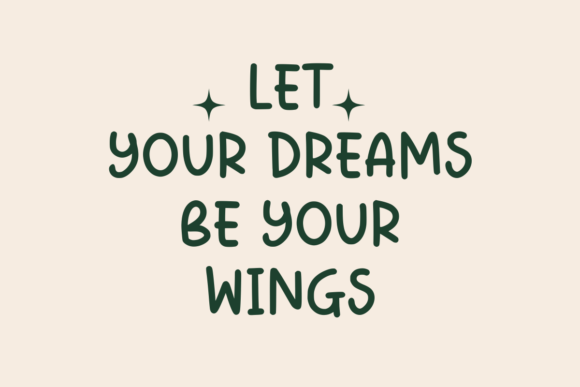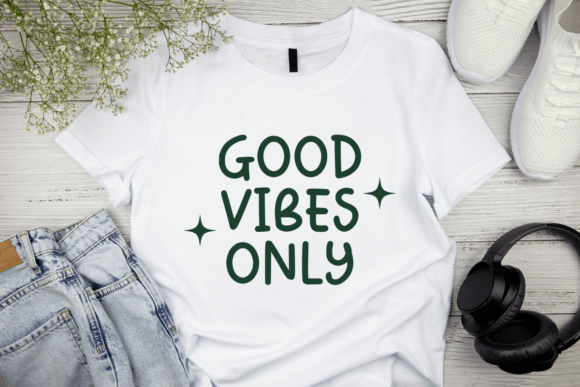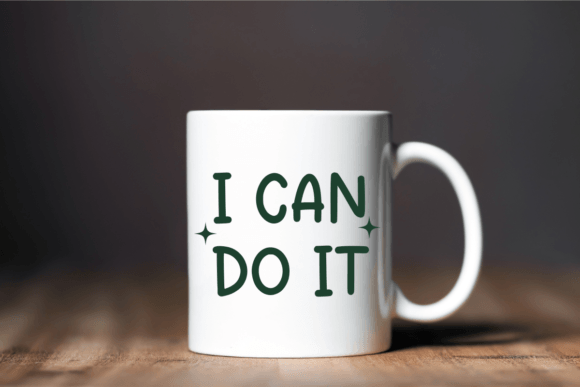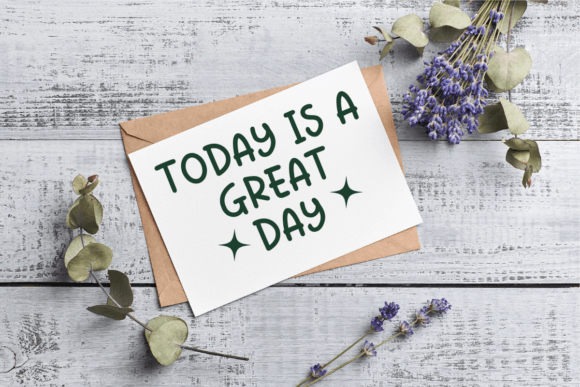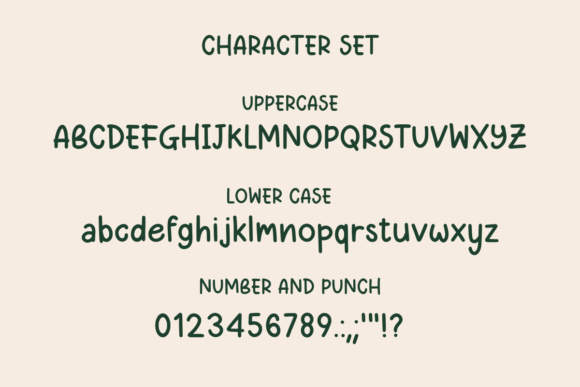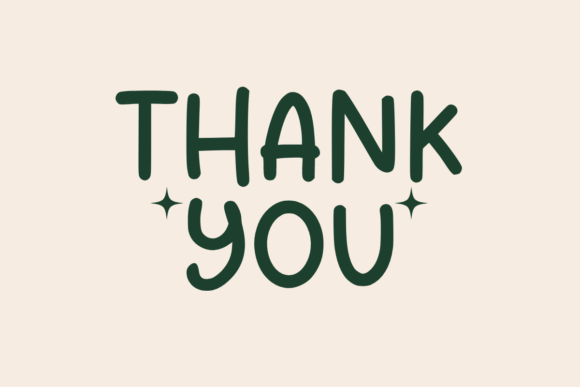
Introduction to Just Bunny Font
Have you ever been working on a creative project, and the perfect design element has been just out of reach? Maybe you’re crafting a greeting card, designing a social media graphic, or creating a beautiful logo. Whatever your project, finding the right font can make all the difference.
Enter the adorable Just Bunny Font, a high-quality, handwritten font that’s perfect for adding a touch of whimsy to your designs. This free download is a valuable resource for designers looking to add some personality to their work. With its transparent background and playful aesthetic, the Just Bunny Font is a must-have for anyone looking to elevate their creative project.
Key Features of Just Bunny Font
- Includes a range of cute bunny characters, perfect for adding a playful touch to your design, with each character available in multiple poses and expressions.
- Perfect for use in a variety of creative projects, including children’s books, greeting cards, and social media graphics.
Honest Review: Just Bunny Font
I recently came across the Just Bunny Font, and I must say it’s a fun addition to any design project. As a designer, I appreciate the simplicity and playfulness of this font.
- The high-quality design makes it perfect for creative projects where a cute and whimsical touch is needed.
- The font may not be suitable for formal or professional projects, as it’s more geared towards children’s content or playful branding.
- The design can be a bit too simple for some users, who may find it lacking in sophistication.
Overall, I think the Just Bunny Font is a great addition to any design resource collection. It’s perfect for designers looking to add a touch of whimsy to their creative projects. With a little imagination, it can be used to create some truly unique and eye-catching designs.
Getting the Most Out of Just Bunny Font
To get the most out of Just Bunny Font, use it in combination with other design elements to create a visually appealing design. Experiment with different font sizes, colors, and styles to add depth and interest to your design. You can also use it to create custom logos, graphics, and other design elements.
Just Bunny Font is commonly used in creative projects such as graphic design, digital art, and print design. It’s also used in branding and marketing materials, such as logos, business cards, and brochures. With its high-quality design and transparent background, Just Bunny Font is a versatile resource for any design project.